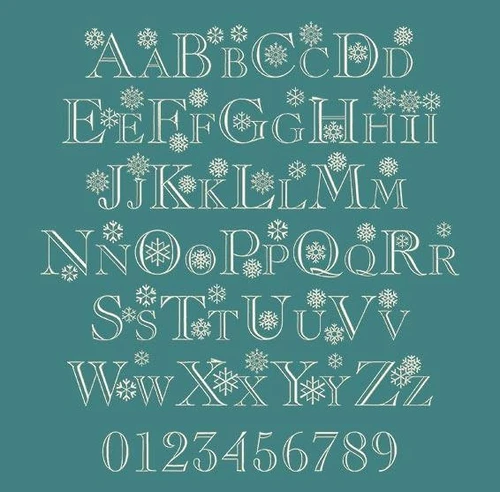
Flakes font and Ice Kingdom font
Sewed out perfectly using Softlight metallic thread
Title: Flakes Machine Embroidery Font
This Flakes font is perfect for personalizing clothes, bags, towels and linens!
Sewed out perfectly using Softlight metallic thread
Beautiful Font; skillfully executed; stitches nicely